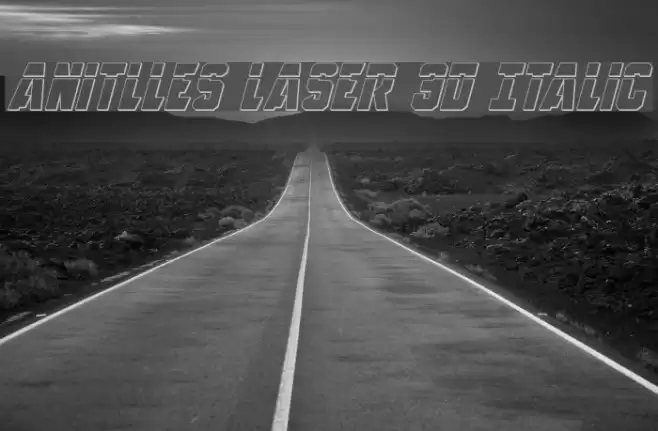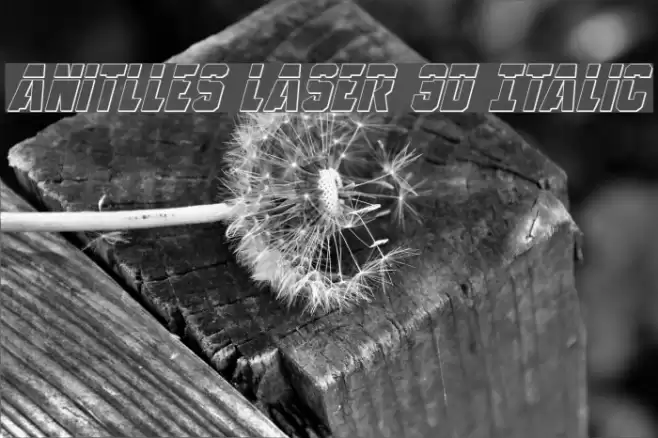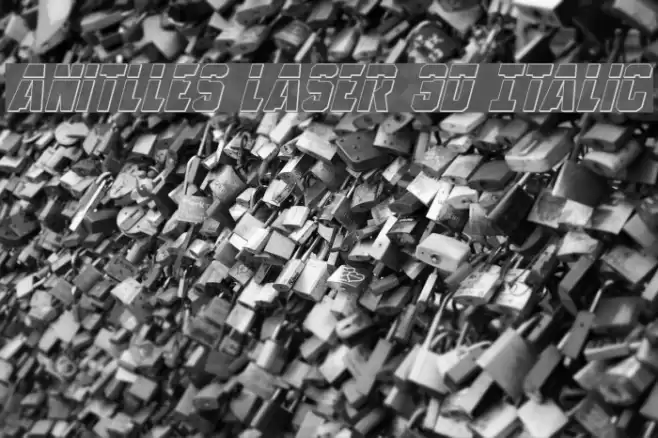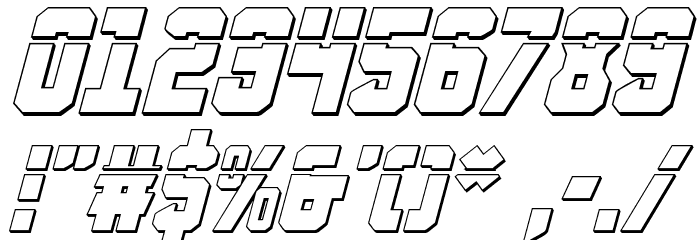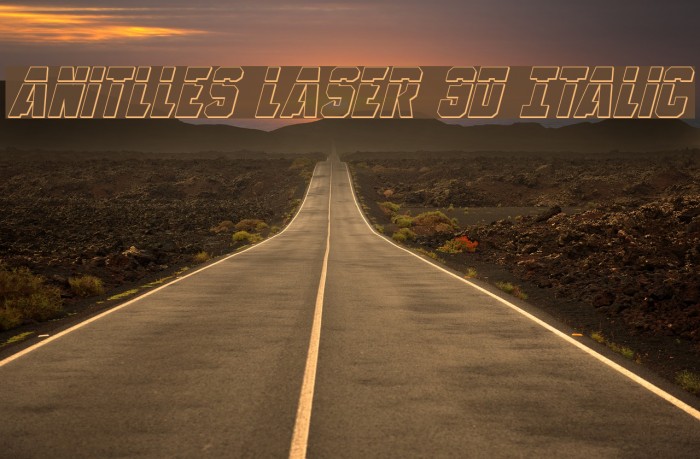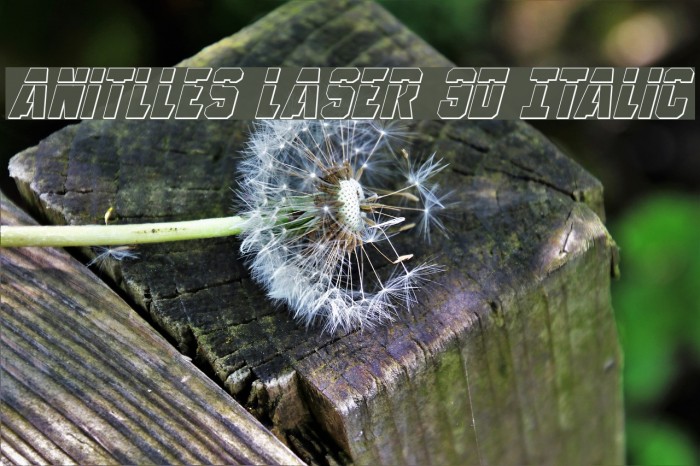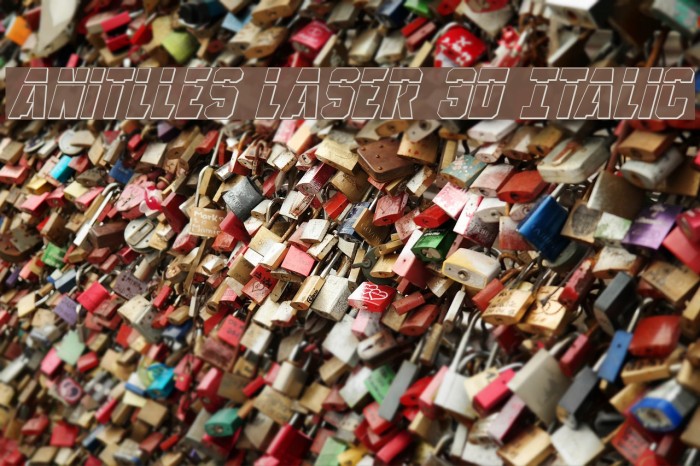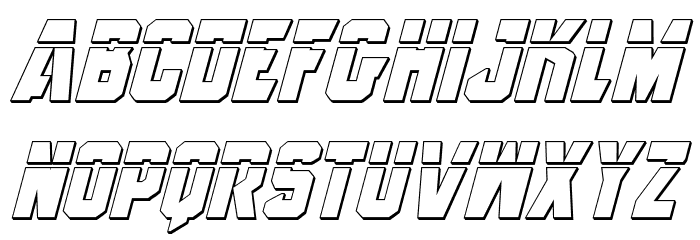
Anitlles Laser 3D Italic Font
Anitlles Laser 3D Italic Description
This font features a bold, futuristic design with a 3D effect that gives each character a sense of depth and dimension. The italicized style adds a dynamic and forward-moving feel, making it ideal for projects that require a modern and edgy look. The characters are outlined, creating a striking visual impact that stands out against any background. The geometric shapes and sharp angles contribute to its high-tech appearance, making it suitable for technology-related themes or creative displays.
A bold, italicized 3D font with a futuristic and dynamic style from Sci-fi fonts.
- Proposed Projects: Ideal for technology branding, sci-fi posters, video game titles, and modern advertising campaigns.